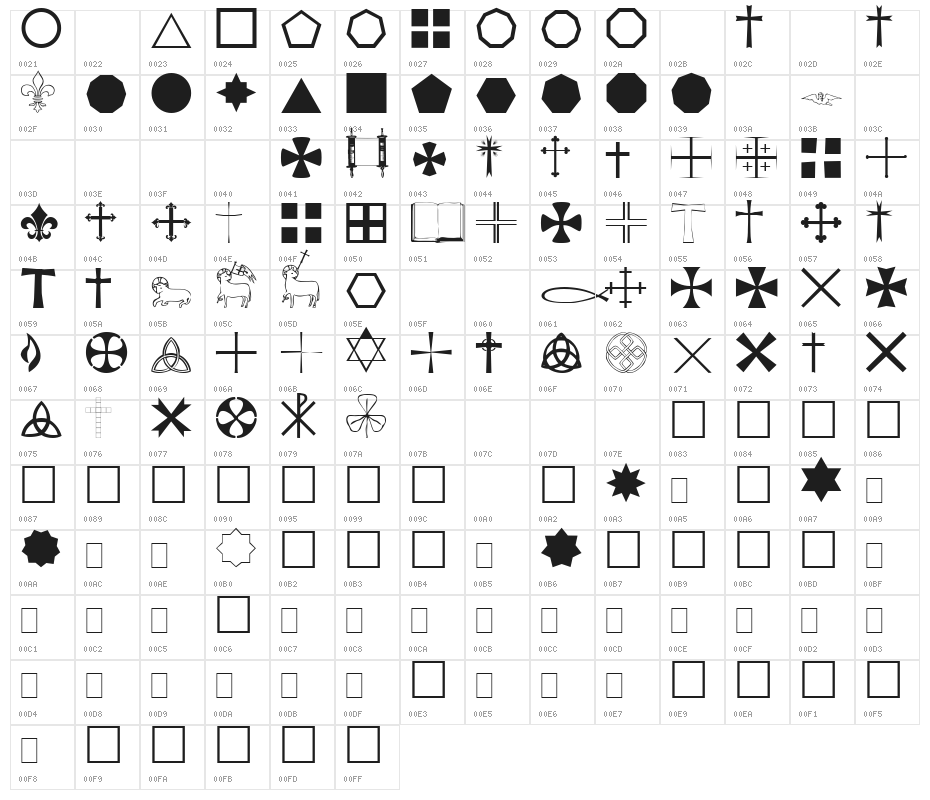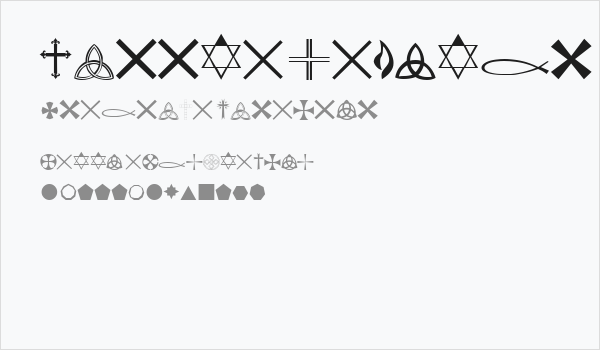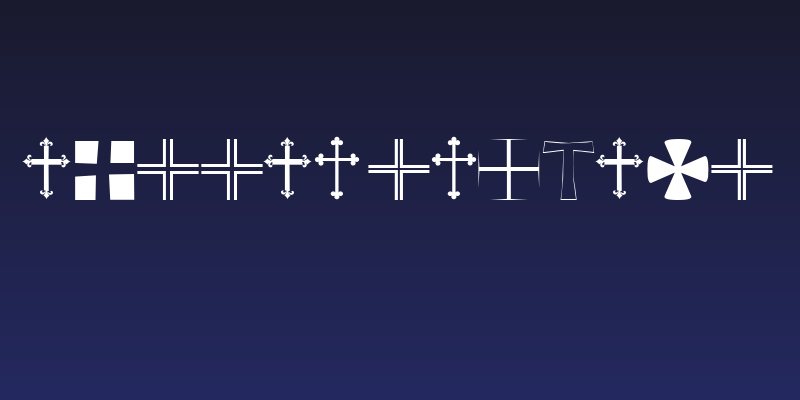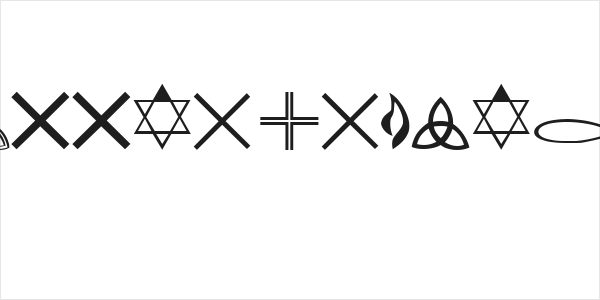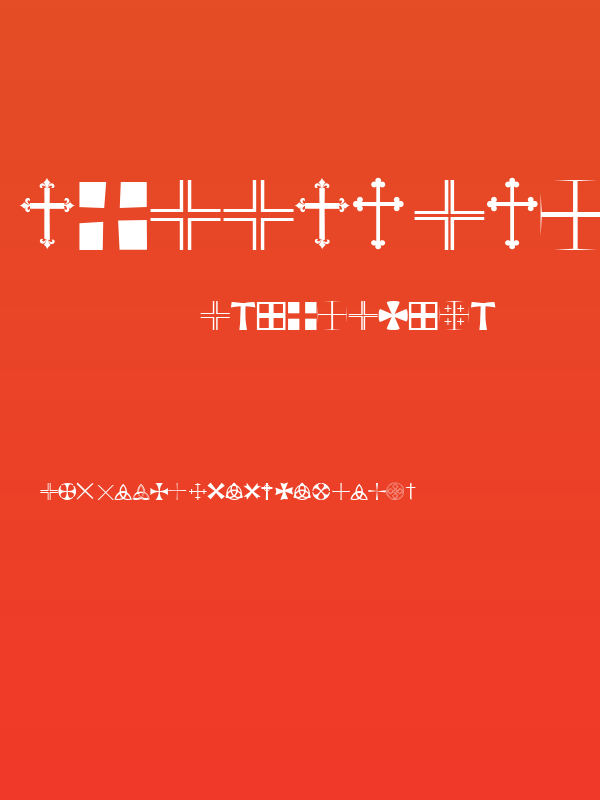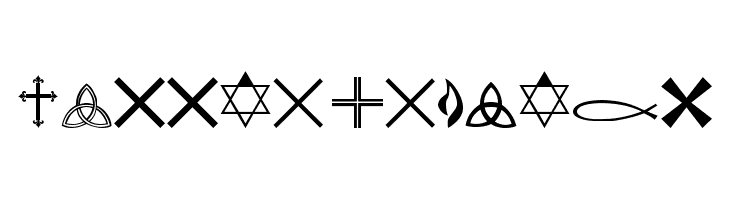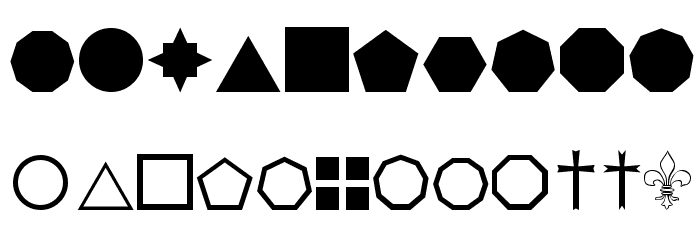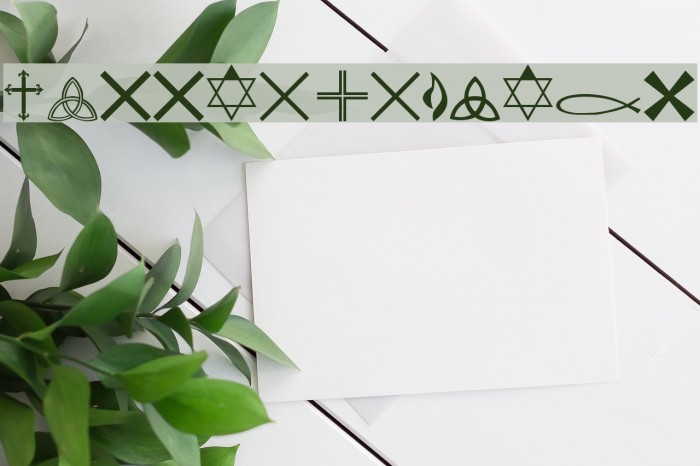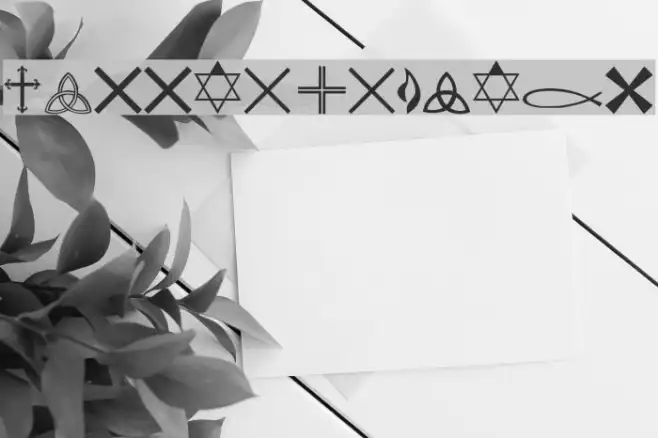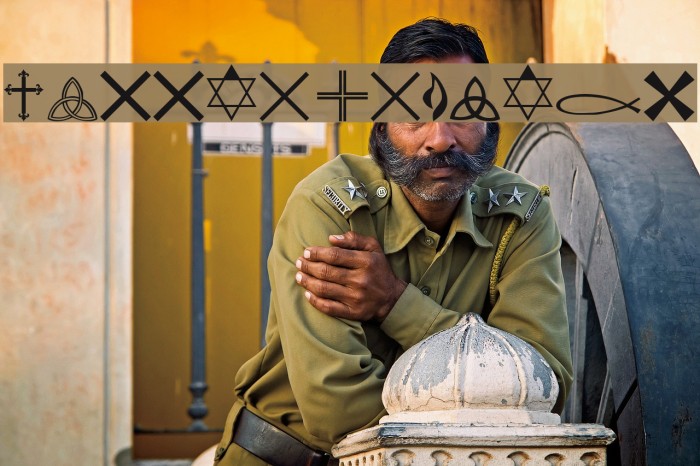
Little Regular Font
Little Regular Description
A decorative dingbat font featuring a variety of religious, geometric, and symbolic icons including crosses, stars, books, shapes, and other ornamental motifs. The glyphs are bold, highly stylized, and primarily black with some outlined forms, offering a mix of solid and line-based designs.
| Use Case | Icons, Borders, Decorative accents |
| Proposed Projects | Religious publications, event flyers, decorative borders, educational materials, scrapbooking, and graphic design projects needing symbolic or ornamental elements. |